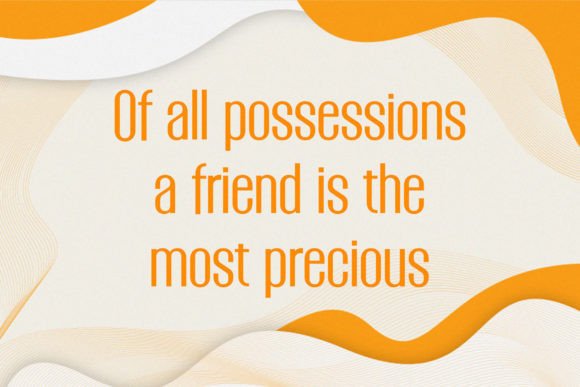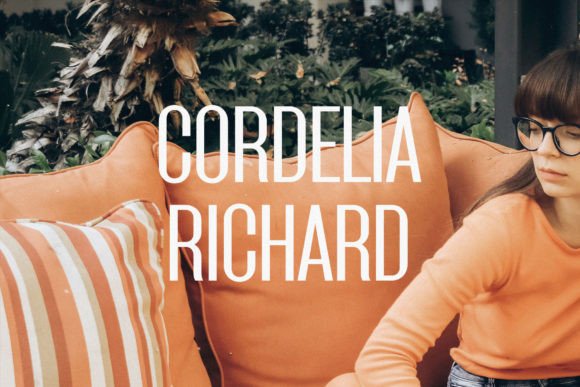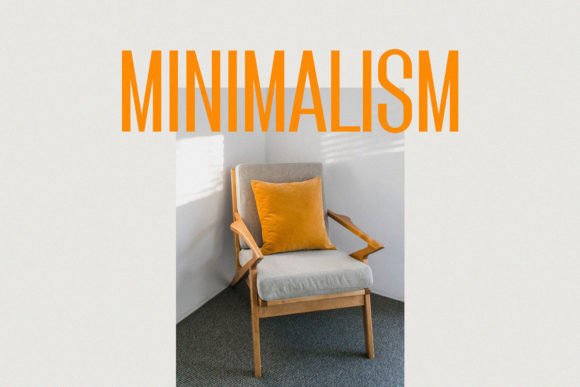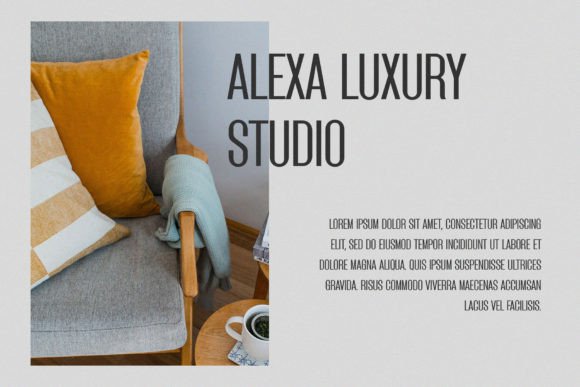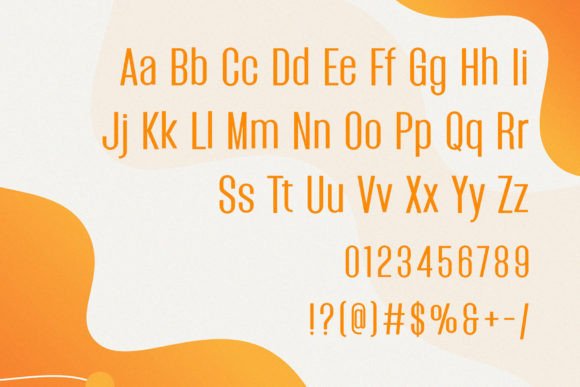
Introducing Grandia Font: Elevate Your Designs with Modern Simplicity
In the world of typography, fonts play a crucial role in conveying the tone and personality of a brand or design. For designers and crafters looking for a modern and simple font that exudes elegance and sophistication, Grandia Font is an excellent choice. This versatile font is perfect for use as a display for headings, logos, branding, magazines, product packaging, and invitations, adding an extra touch of class to any project.
What Makes Grandia Font Stand Out?
Grandia Font boasts clean lines and smooth curves, making it a standout in the world of typography. Its modern simplicity gives it a fresh and contemporary feel, allowing it to seamlessly integrate into a wide range of design projects. Whether you’re working on a logo, brochure, or social media graphics, Grandia Font is sure to make a lasting impression.
Key Features of Grandia Font
- Modern and Simple: Grandia Font’s sleek design makes it perfect for projects that require a clean and contemporary look.
- Clean Lines and Smooth Curves: The font’s elegant lines and curves add a touch of sophistication to any design.
- Versatile: Grandia Font can be used for a variety of projects, including headings, logos, branding, magazines, product packaging, and invitations.
- Display Font: Grandia Font is optimized for use as a display font, making it perfect for headlines and titles.
Grandia Font is a valuable addition to any designer’s or crafter’s toolkit. Its versatility and elegance make it an excellent choice for a wide range of projects, from professional branding materials to personal crafting projects. With Grandia Font, you can:
- Create stunning logos and branding materials that make a lasting impression.
- Design eye-catching magazine layouts and editorial content.
- Develop beautiful product packaging that stands out on store shelves.
- Make personalized invitations and greeting cards for special occasions.
Tips for Using Grandia Font Effectively
To get the most out of Grandia Font, here are a few tips to keep in mind:
- Use it as a display font: Grandia Font is optimized for use as a display font, so use it for headlines and titles to make a lasting impression.
- Experiment with font sizes: Grandia Font looks great in a variety of font sizes, so don’t be afraid to experiment to find the perfect size for your project.
- Pair it with complementary fonts: Grandia Font pairs well with a variety of fonts, so try pairing it with complementary fonts to add depth and interest to your design.
Grandia Font is a modern and simple font that is perfect for designers and crafters looking to add a touch of elegance and sophistication to their projects. With its clean lines, smooth curves, and versatile design, Grandia Font is sure to become a go-to font in your toolkit. Whether you’re working on a professional branding project or a personal crafting project, Grandia Font is an excellent choice.
Get Ready to Elevate Your Designs with Grandia Font